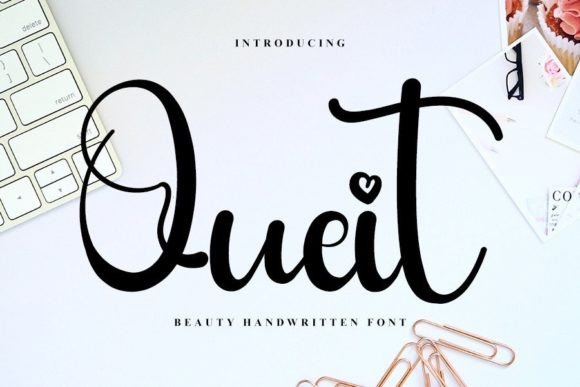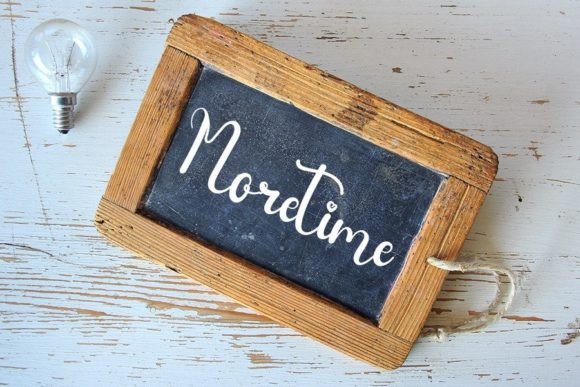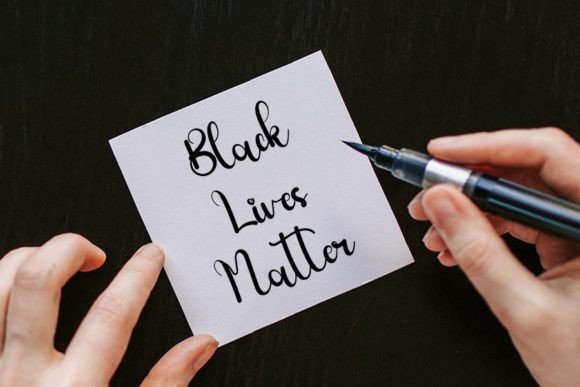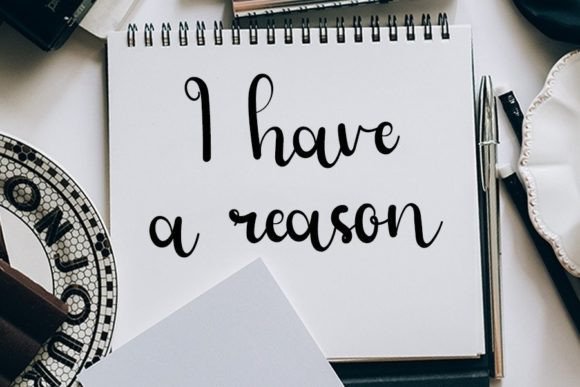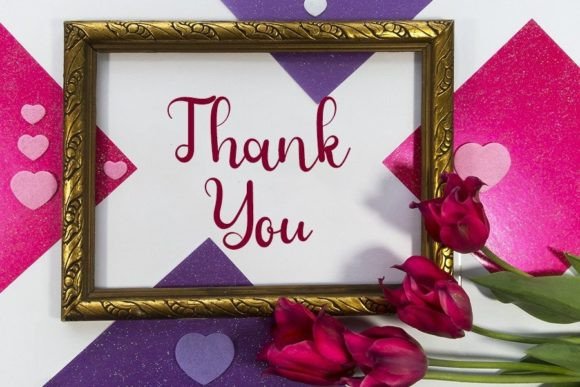
Quiet Font
About Quiet Font
Quiet is a sophisticated and visually appealing handwritten font, distinguished by its neat and beautiful strokes that carry an elegant touch. It proves to be an excellent choice for a variety of creative projects, enhancing them with its unique charm. Fall in love with Quiet’s remarkably distinct and timeless style, and leverage its versatility to craft spectacular designs that leave a lasting impression.
Whether you’re working on branding, graphic design, or any creative endeavor, Quiet lends an air of refinement to your projects. Its handwritten aesthetic brings a personal and human touch, adding warmth and character to your visual compositions. This font is particularly well-suited for projects that require a balance of elegance and approachability.
Quiet’s seamless blend of neatness and beauty makes it a valuable asset for a range of design applications. From invitations to posters, and from social media graphics to product packaging, Quiet adapts effortlessly to various contexts. The font’s versatility allows you to experiment with different design elements, ensuring that your creations stand out with a touch of sophistication.
Embrace Quiet as more than just a font; consider it a design companion that elevates your creative expression. Its beauty lies not only in its handwritten charm but also in its ability to evoke a sense of timelessness. Let Quiet be the silent force behind your projects, adding a layer of elegance that captivates and resonates with your audience. Discover the enchanting world of Quiet, where every stroke tells a story and every design becomes a masterpiece.